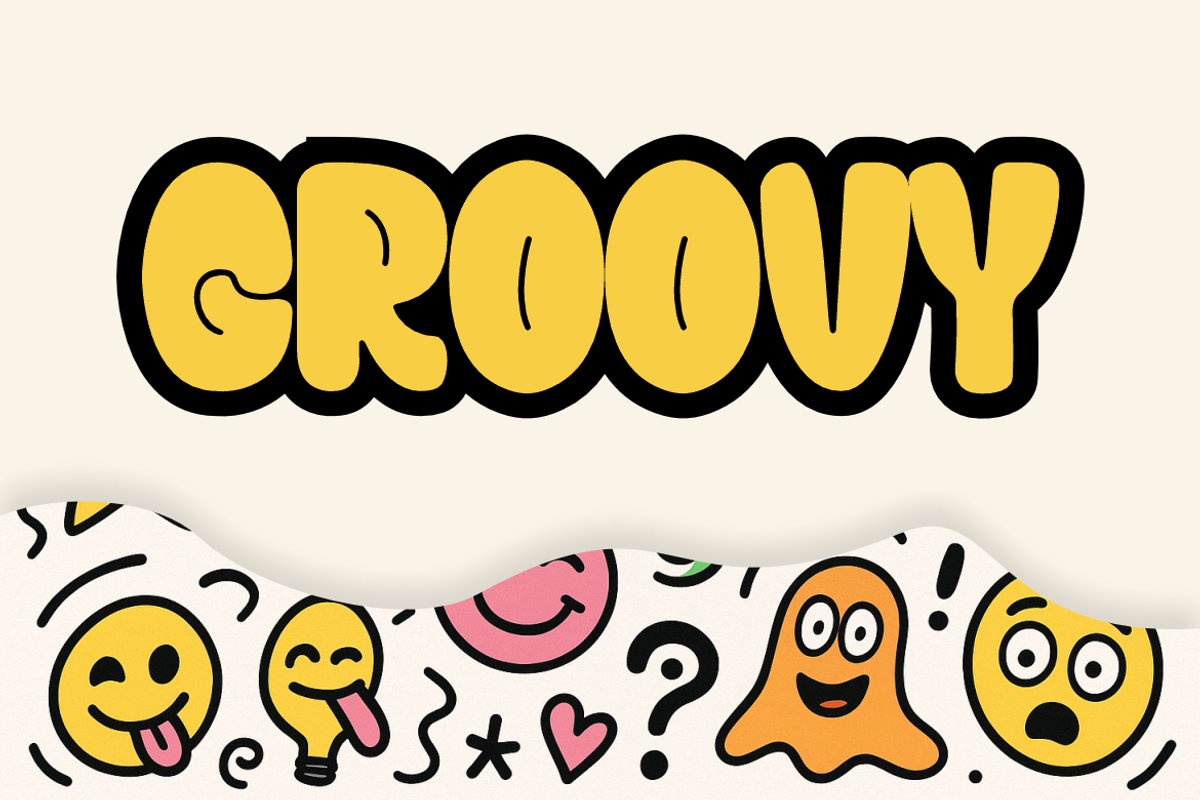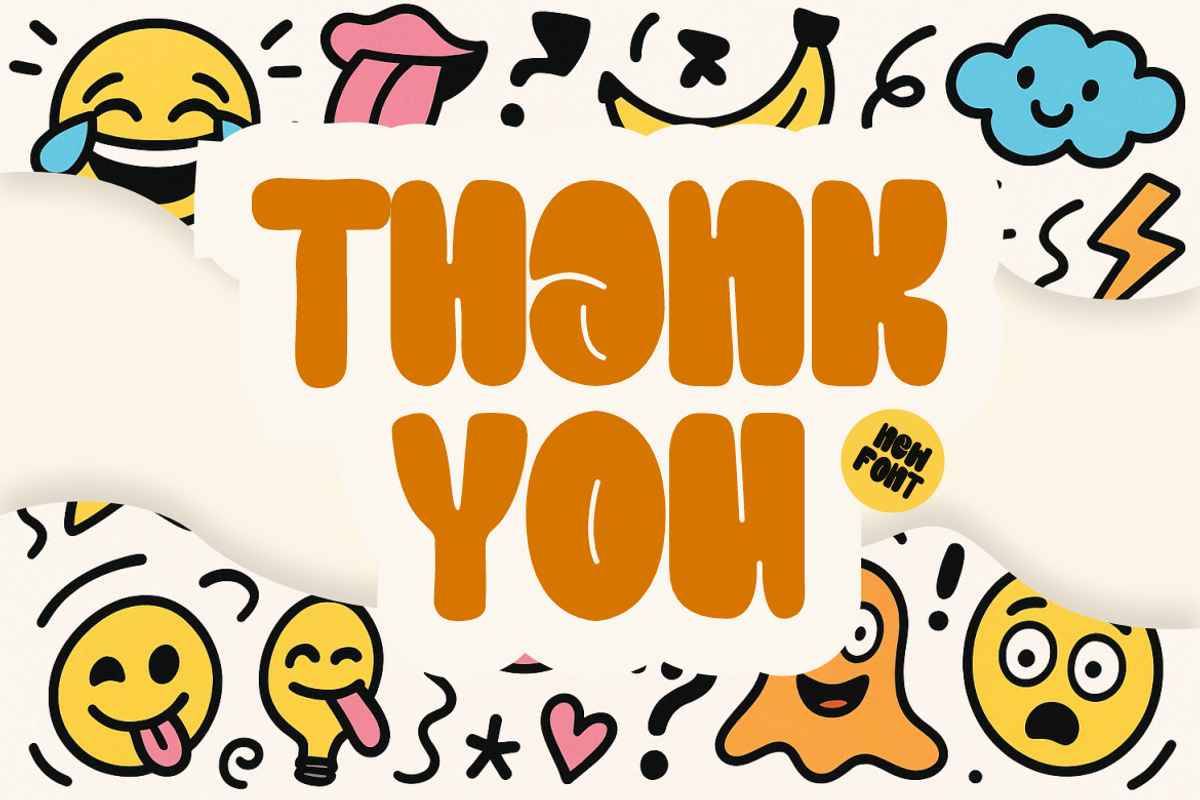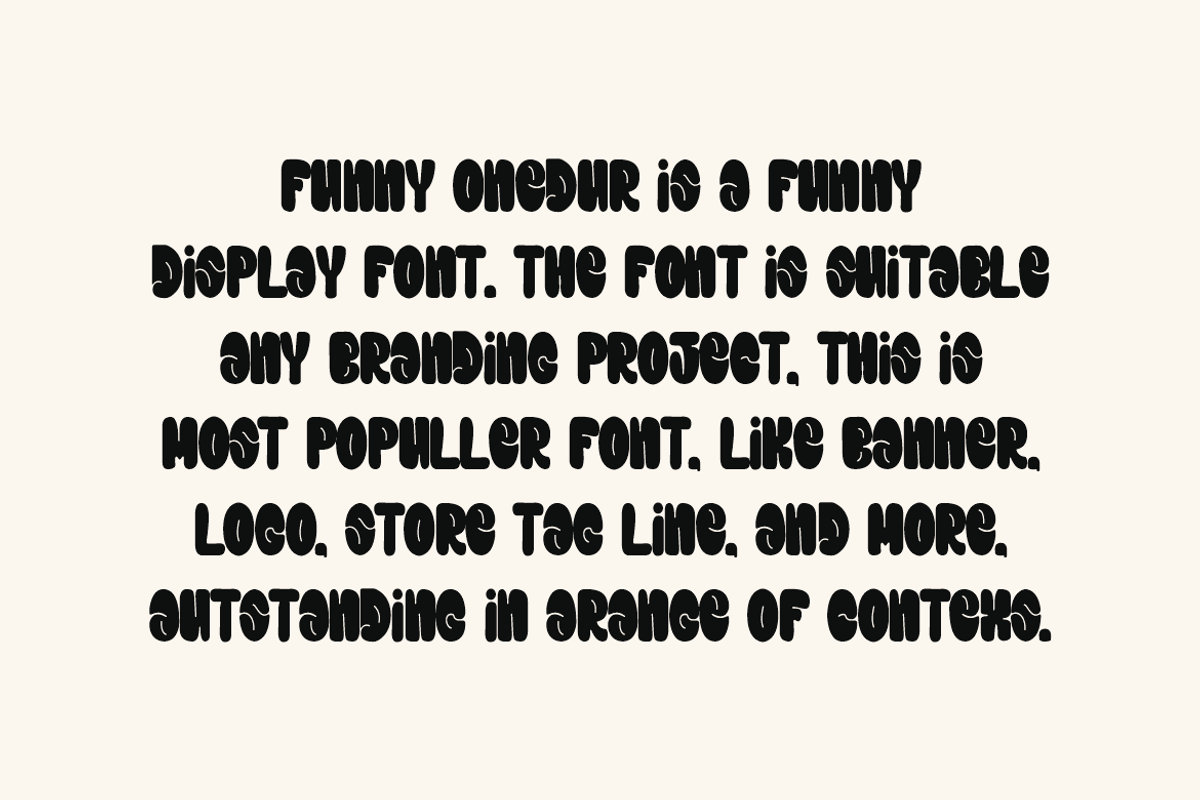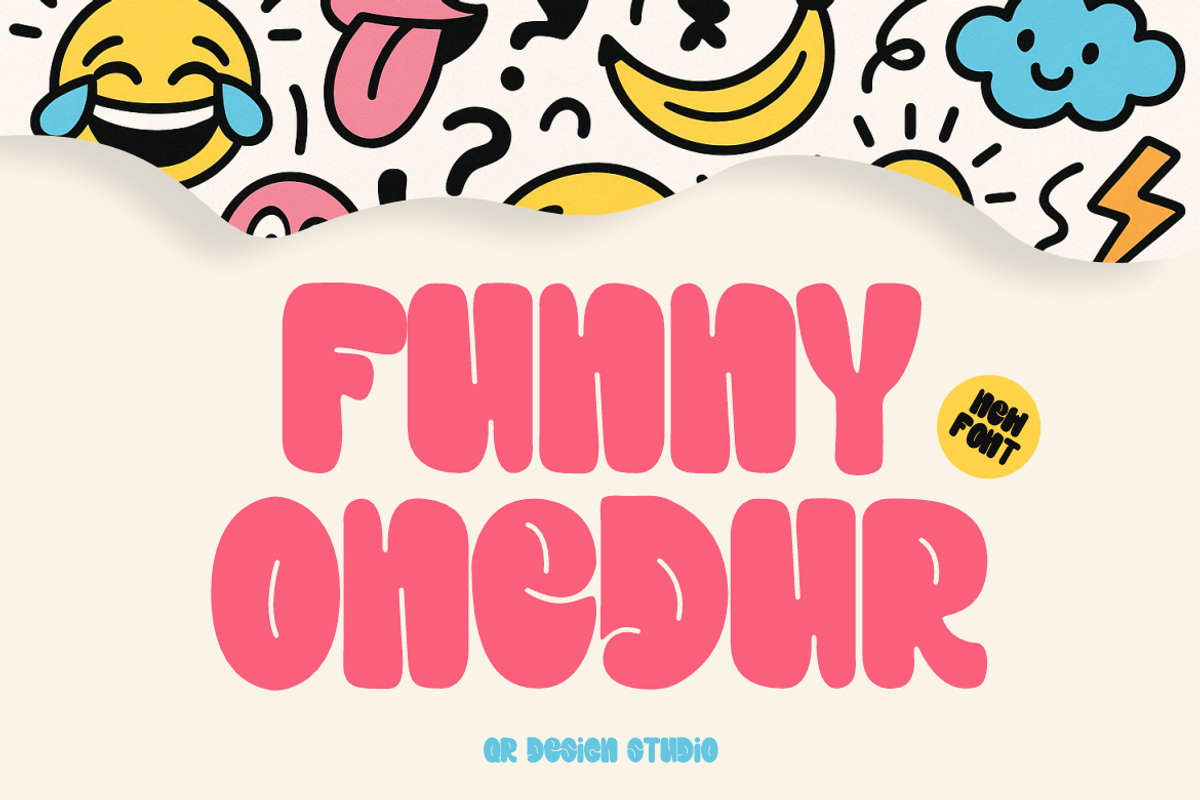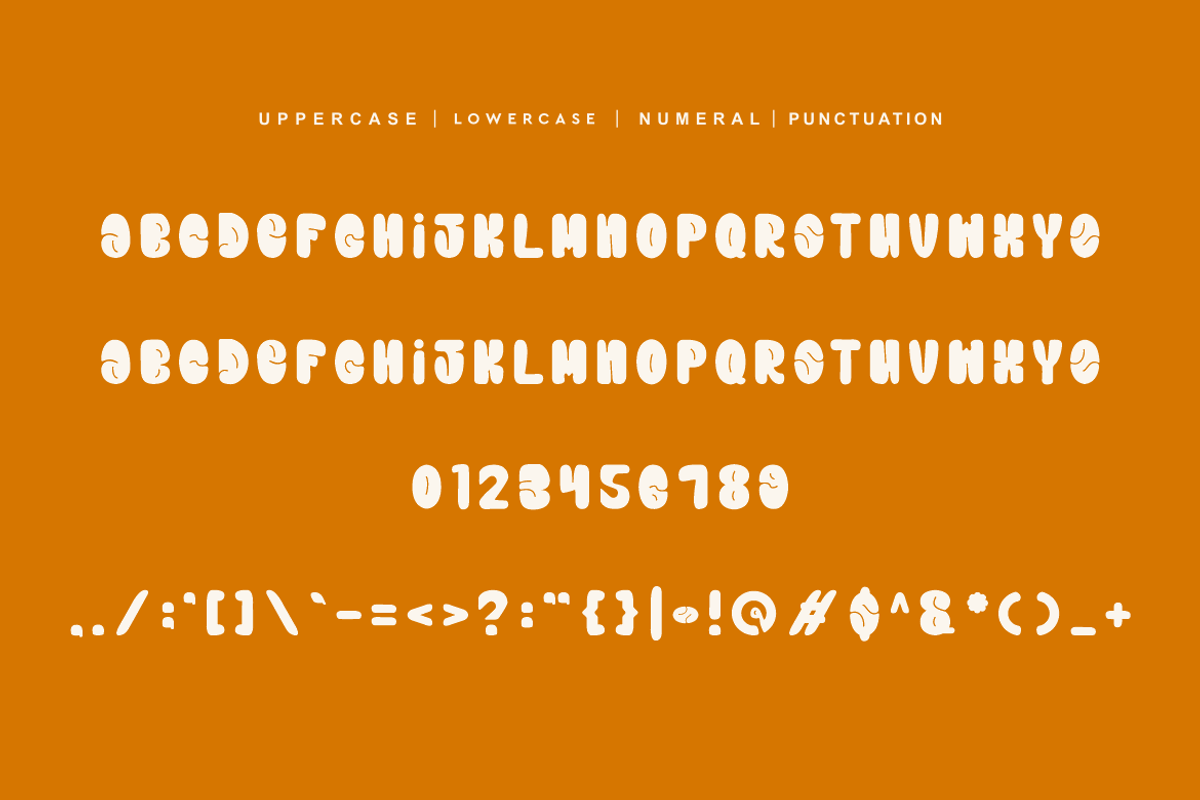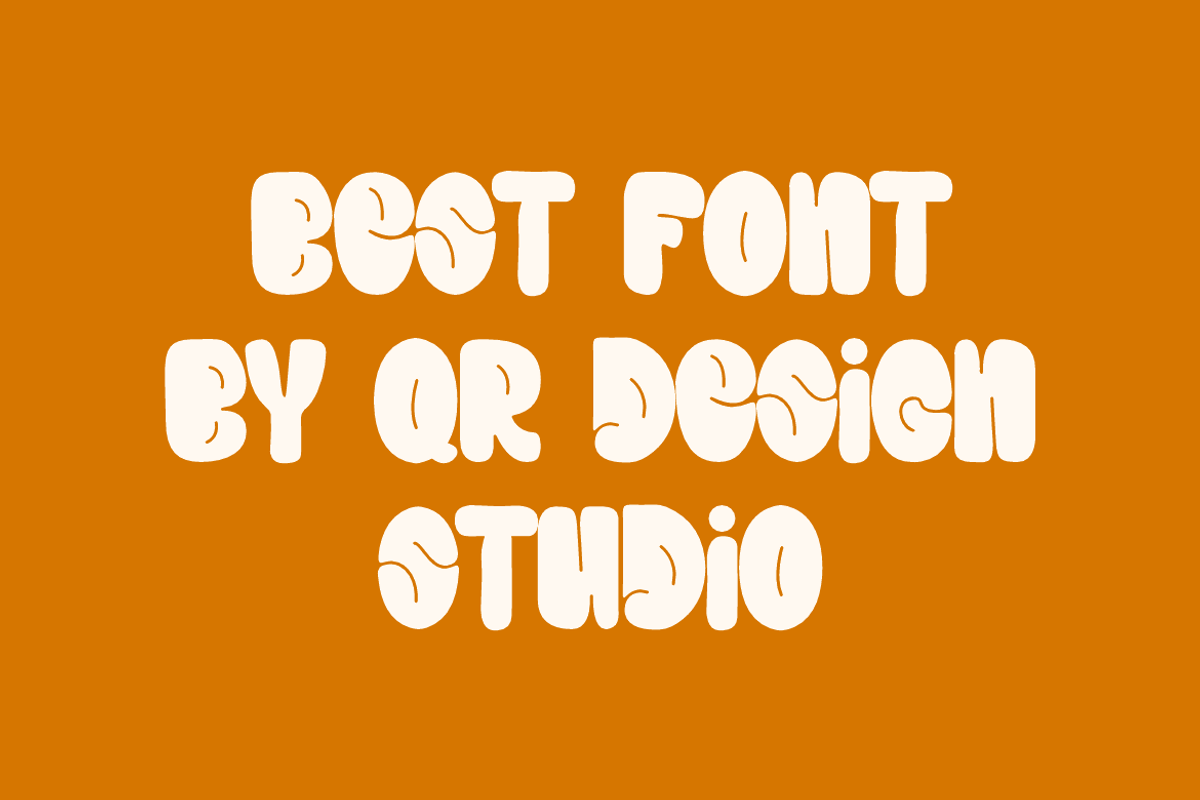
Funny Onedur - Groovy Font
Funny Onedur Font is a bold and authentic display font. The font is suitable for any branding project like poster, logo, kids, and many more. Outstanding in a wide range of contexts.